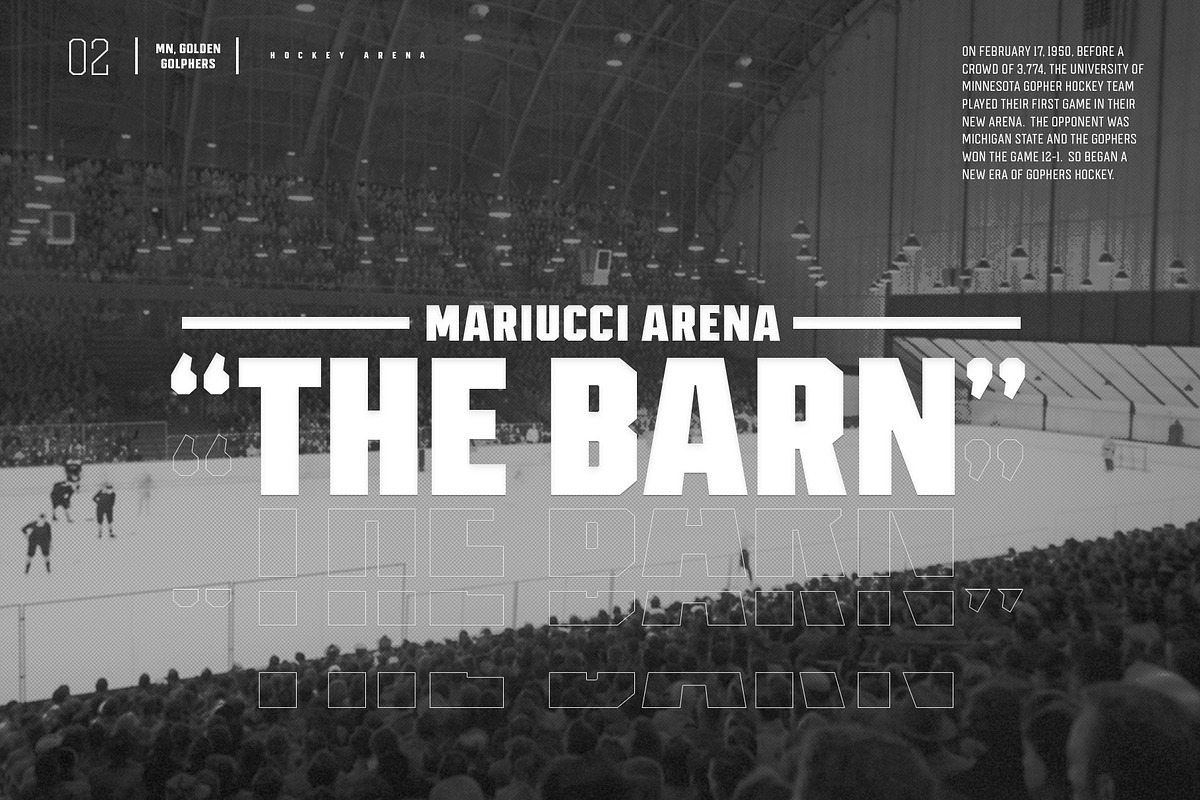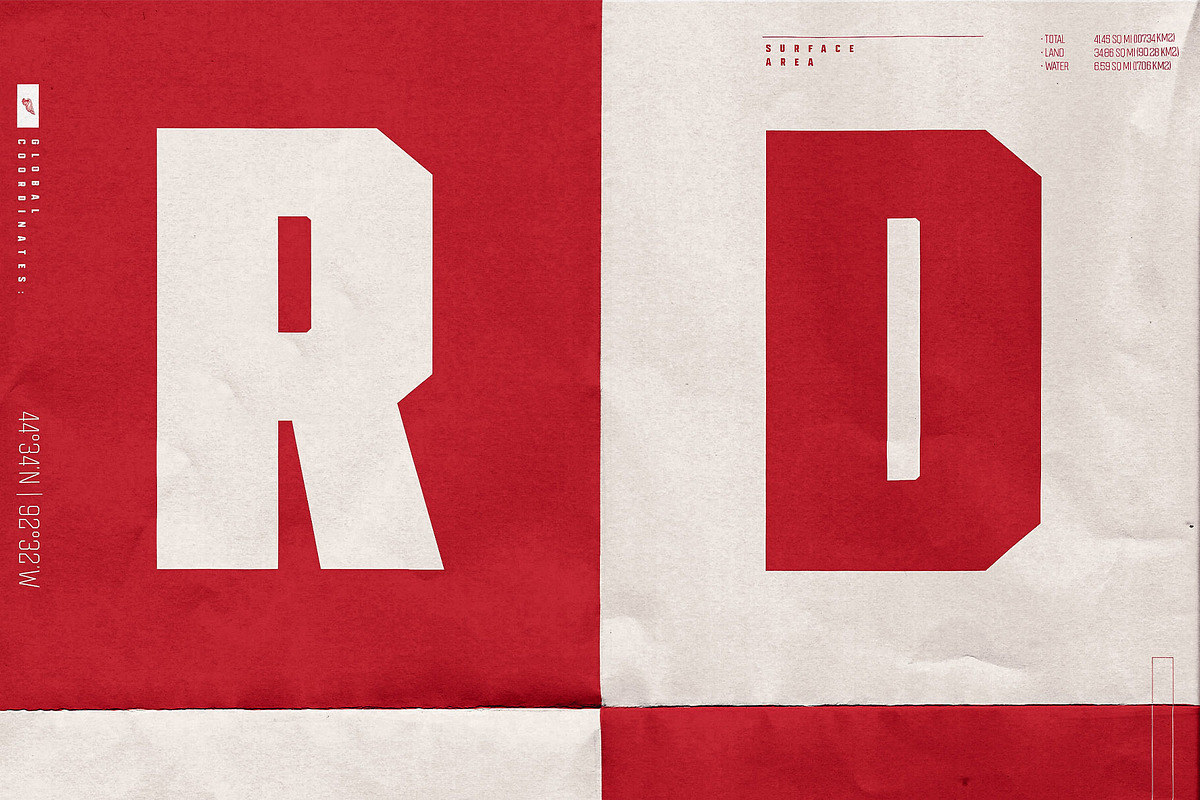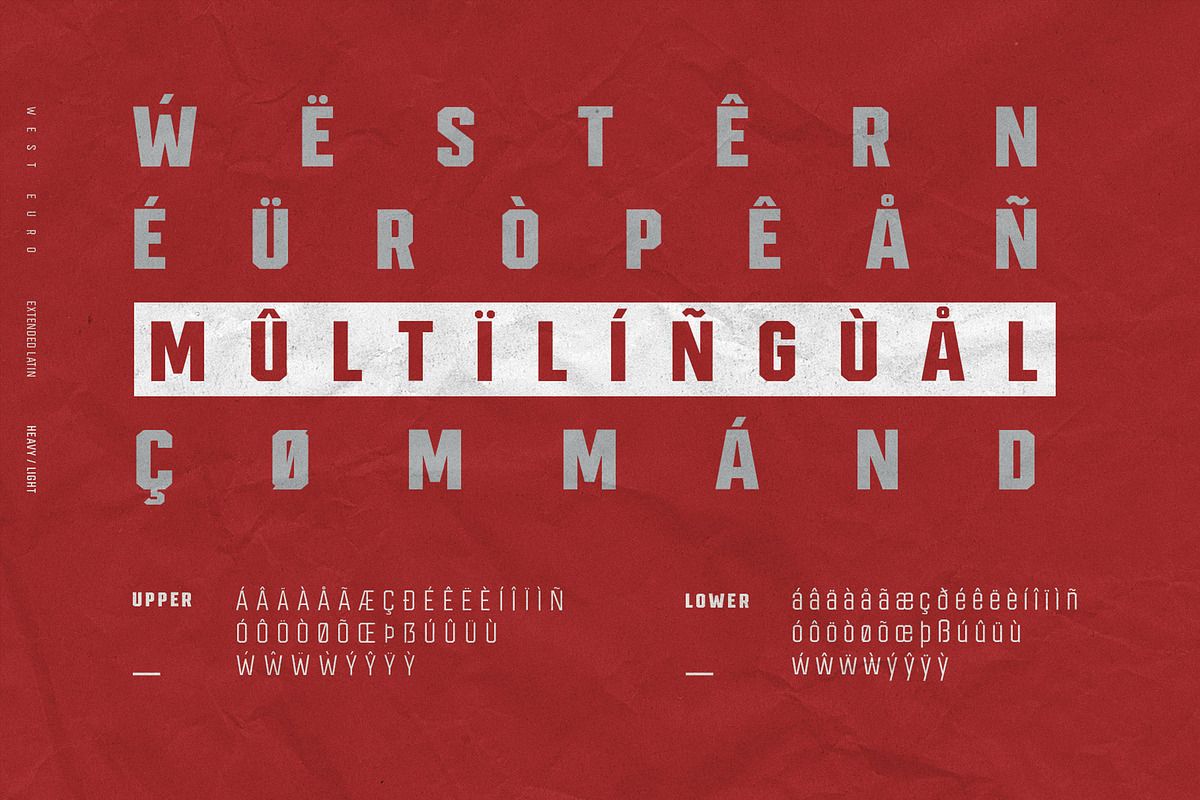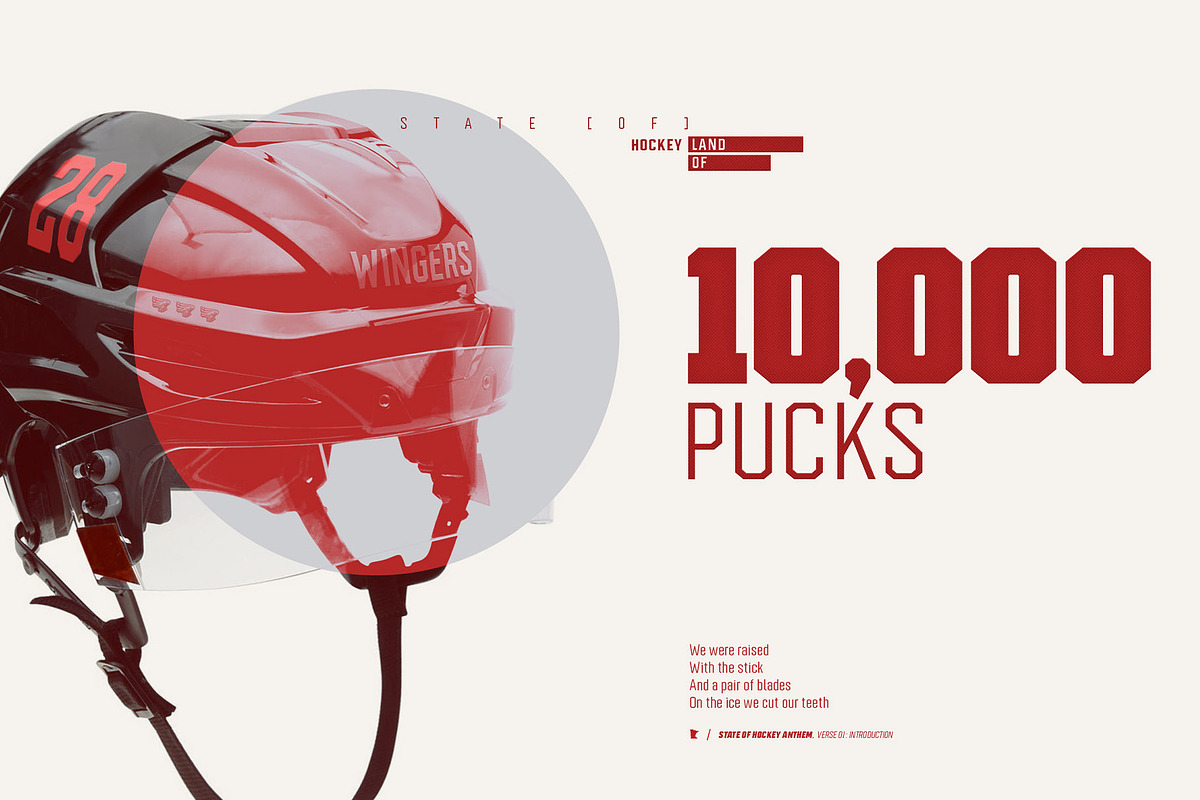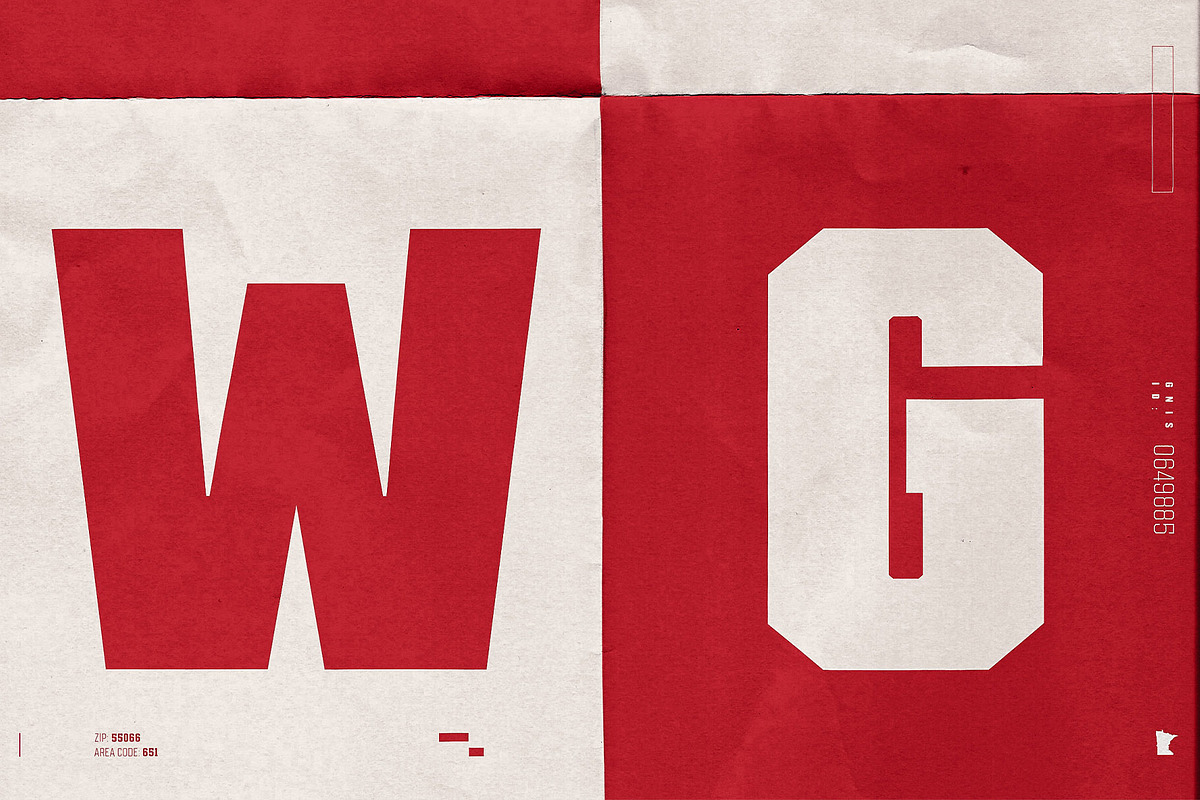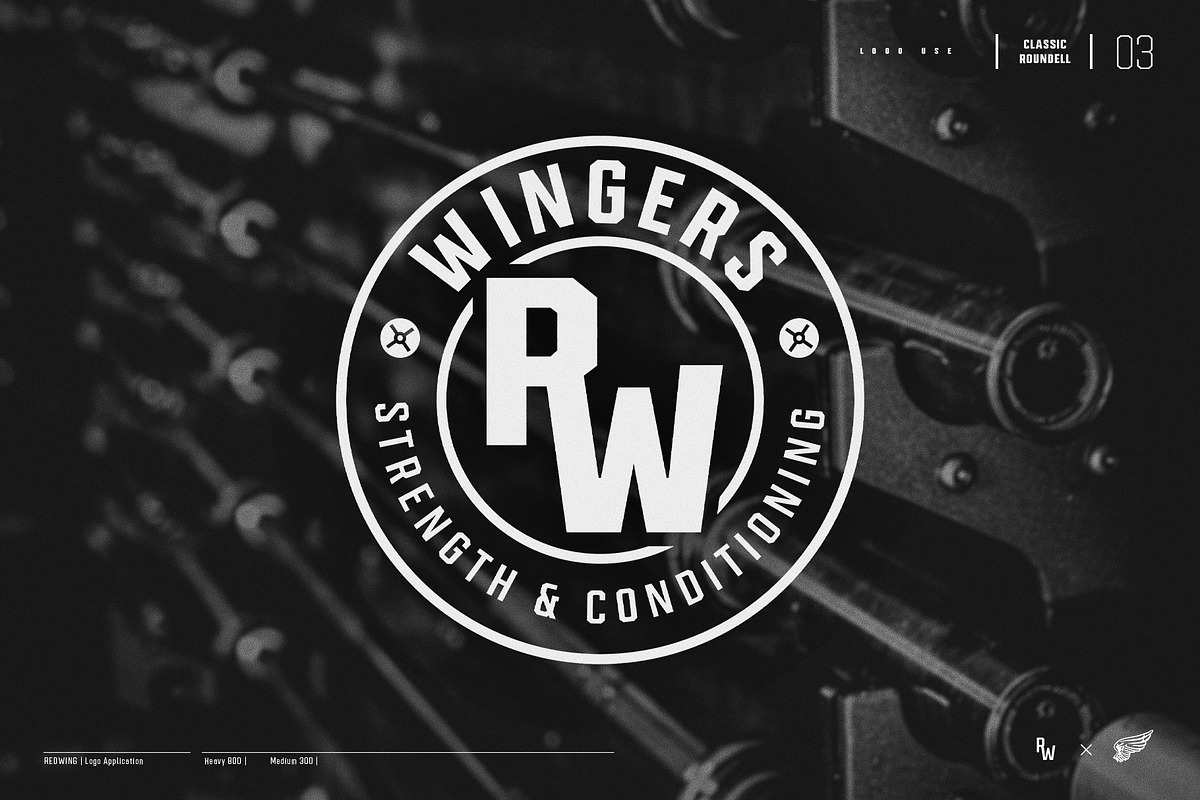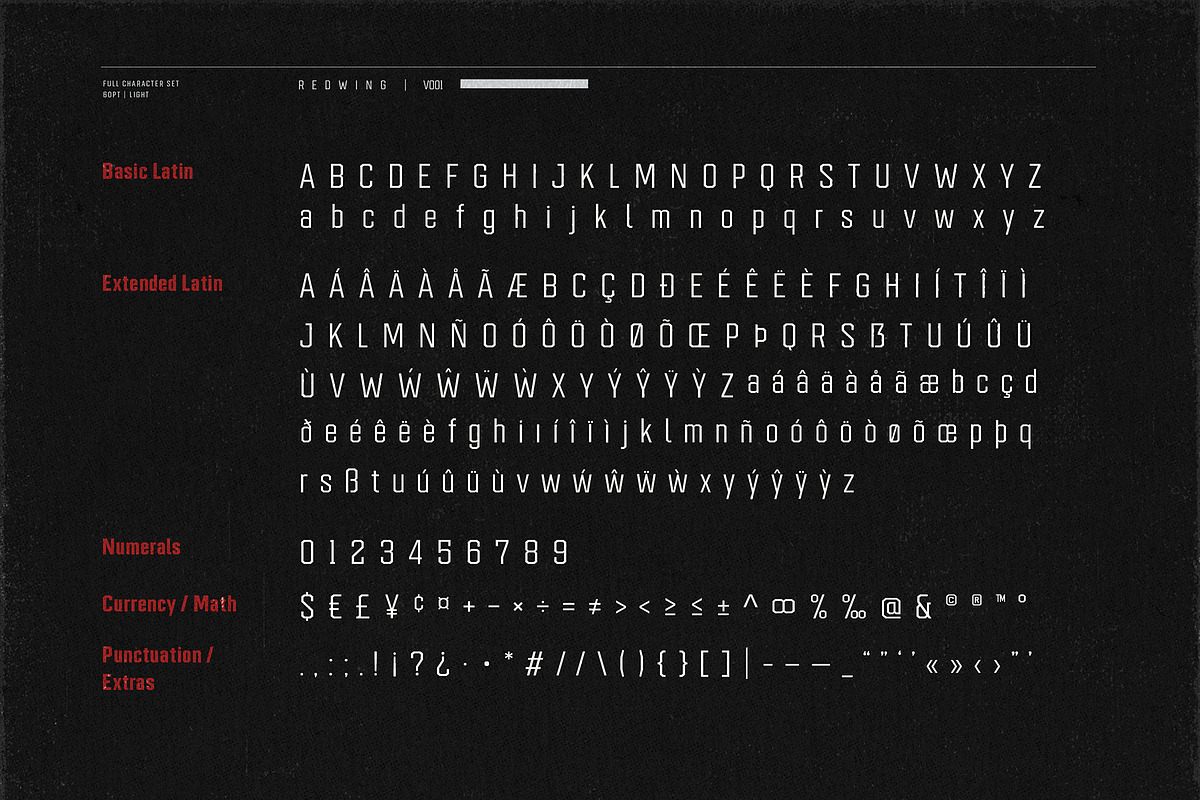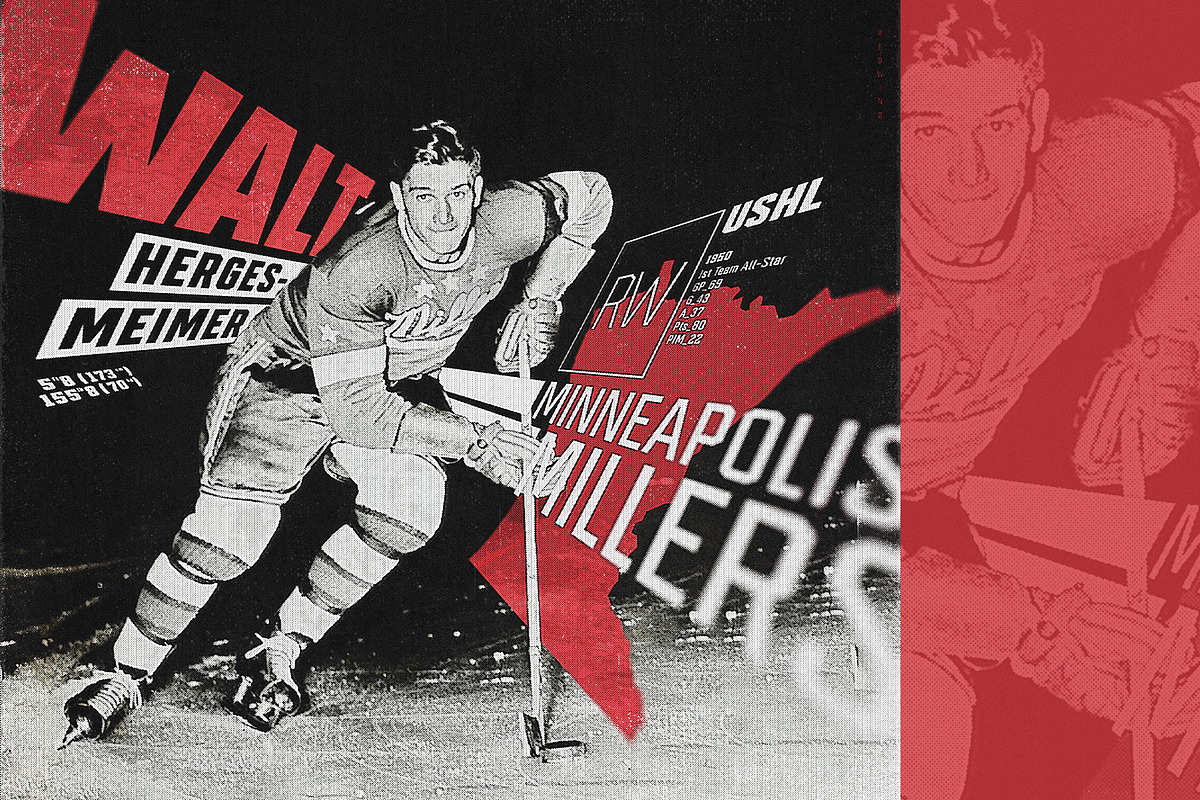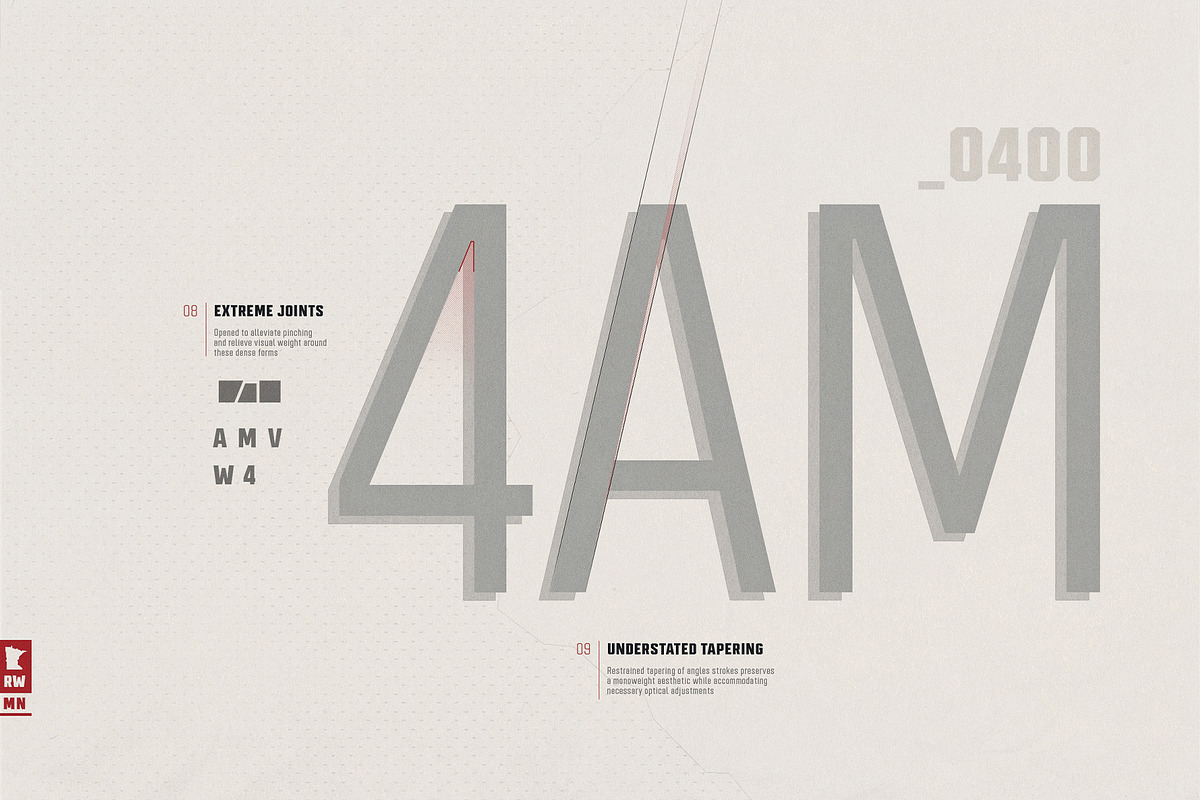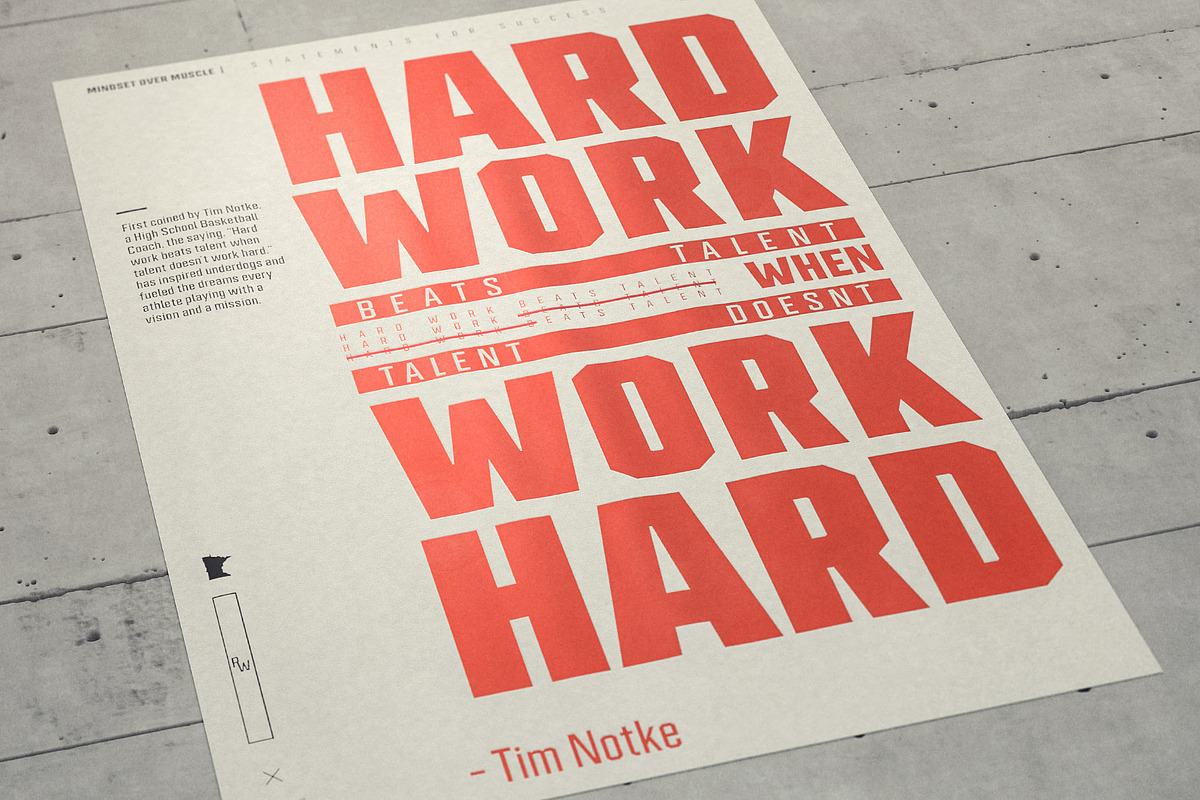
Redwing
Redwing | Athletic Block Typeface
Cut from the foundations of athletic block fonts and industrial typography, Redwings’ machined aesthetic & heavy-duty construction gives it the decisive tone ideal for key messaging and headlines. Its' bold form and unapologetic angles demand attention and deliver with confidence on and off the field of competition.
Featuring classic proportions, restrained stroke contrast, and subtle ink traps, Redwing integrates modern details while preserving a timeless appeal.
Redwing weight scale
- Hairline (100)
- Thin (200)
- Light (300)
- Regular (400)
- Medium (500)
- Bold (600)
- Heavy (700)
- Black (900)